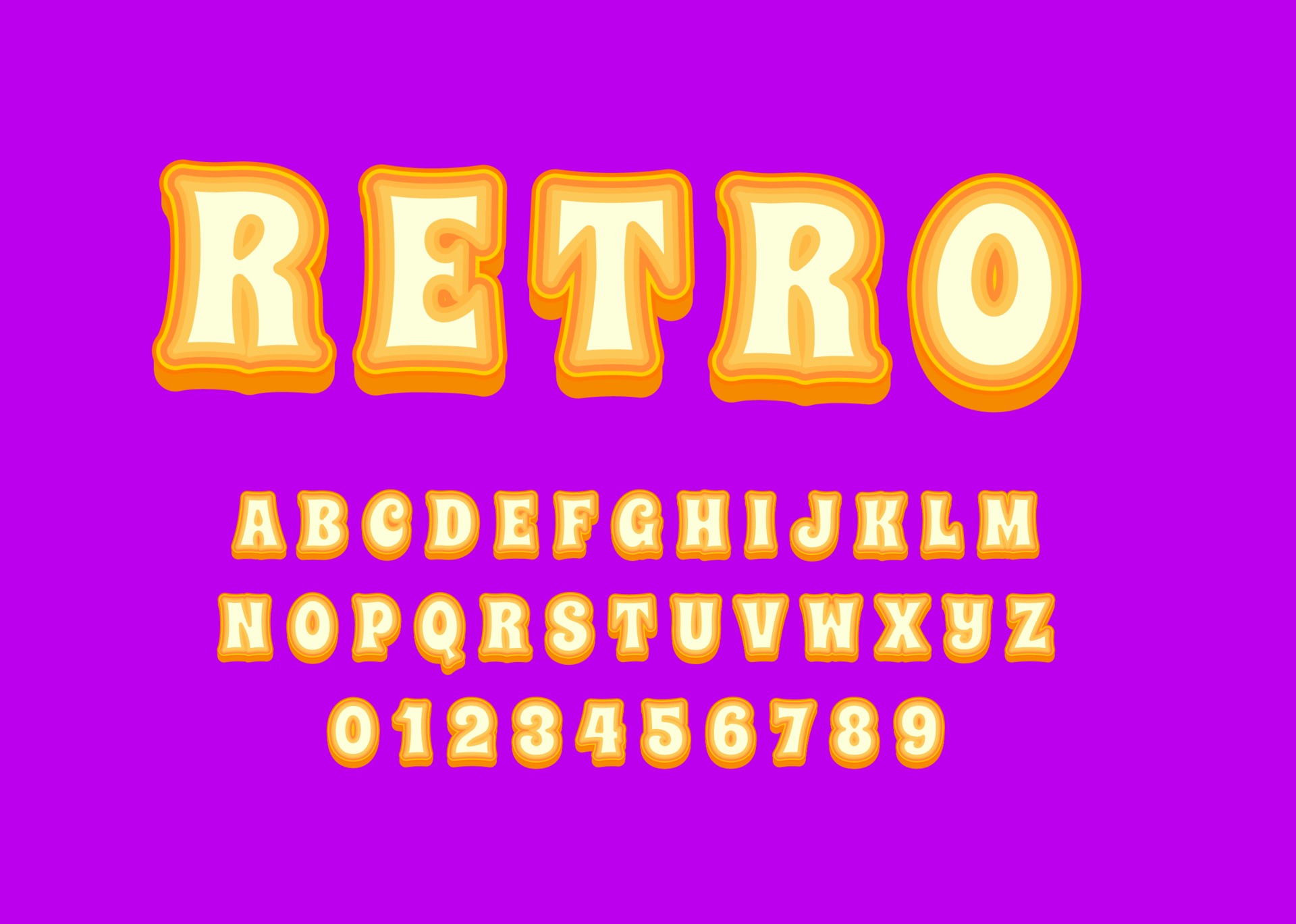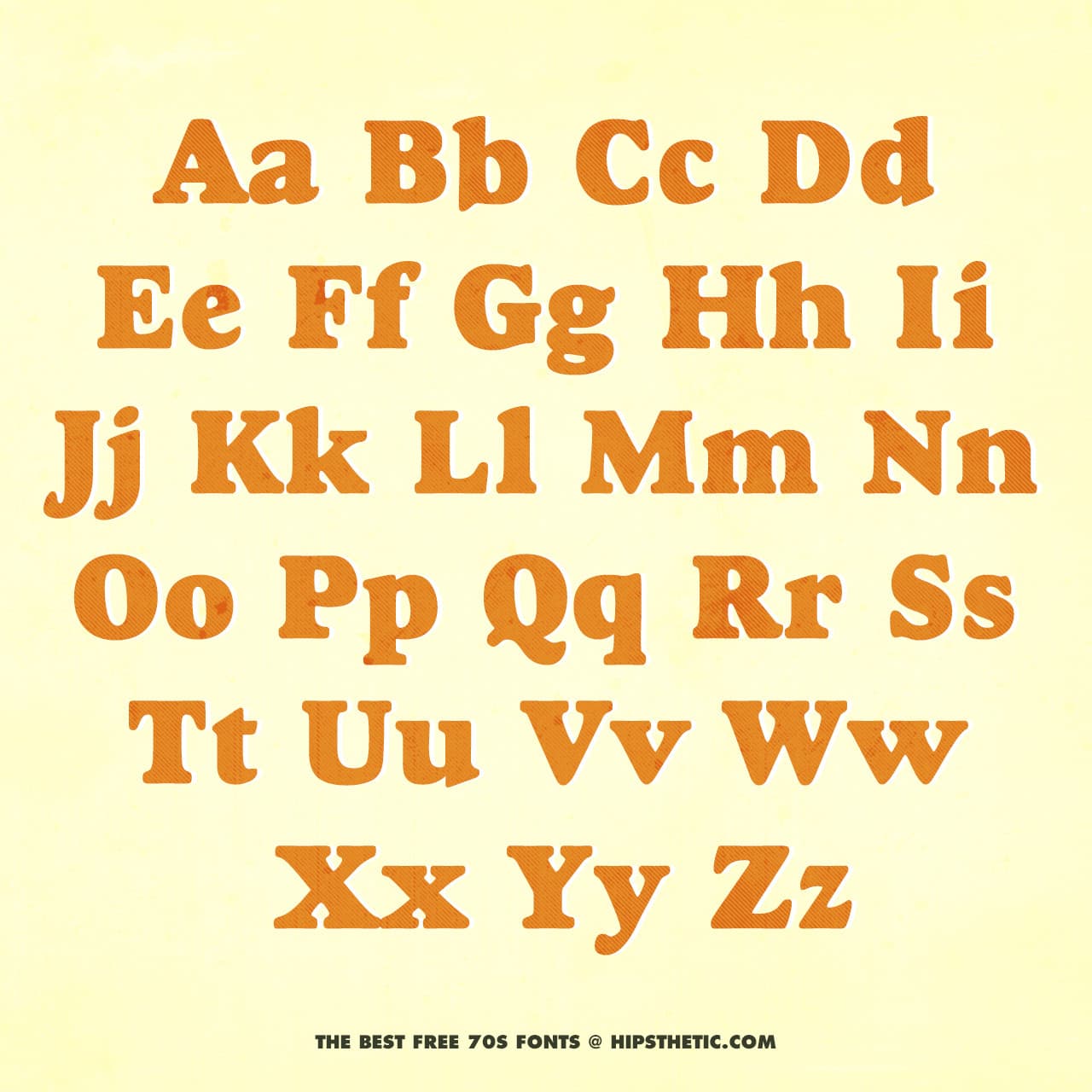
Use a faded color scheme to get a real retro feel to mimic a.
Go back to the swinging 60's with these totally groovy 1960s style fonts, perfect for retro or vintage projects as well as modern works that demand attention. Hold the shift key while nudging the duplicate down and right. Retro fonts can be used when it is necessary to reconstruct the atmosphere of the past days in some kind of designing project, whether it is a book, a newspaper, or a website.
Texts in retro style can take you or your audience to the good. 31 groovy fonts that are totally far out!